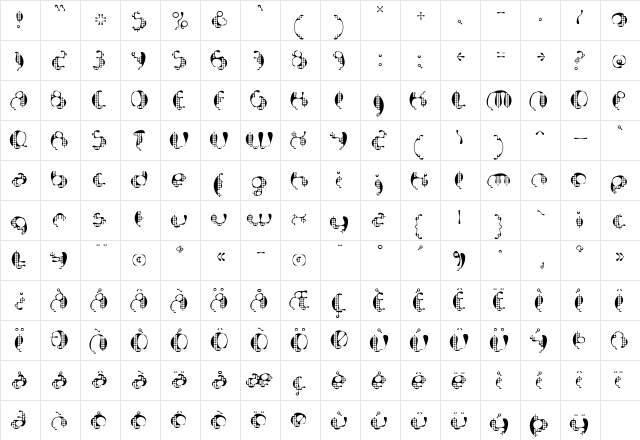
Bionic Regular
Design Context for Bionic Typeface
Bionic is a composed and adaptable typeface that performs quietly and consistently across a wide range of design contexts.